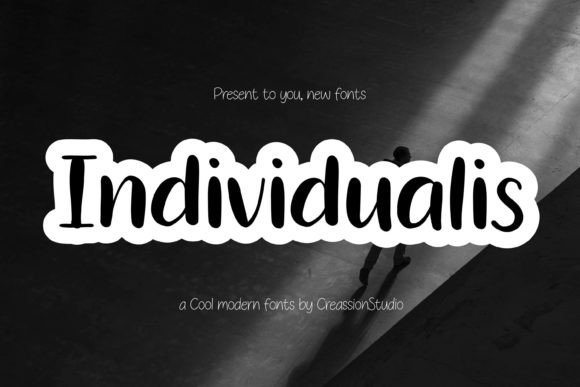
Feast your eyes on Individualis Font, the epitome of elegance and modernity in the realm of digital typography. This captivating script font, skillfully crafted by Creassion Studio, is a symphony of clean lines, balanced proportions, and understated grace. Individualis Font transcends the ordinary, inviting you to embark on a creative odyssey where your designs take center stage.
With Individualis Font as your creative ally, your branding projects will radiate a sense of contemporary sophistication. Its versatile nature effortlessly adapts to a myriad of design contexts, from editorial layouts to digital interfaces. Let Individualis Font infuse your creations with an air of professionalism and timeless appeal, leaving an indelible mark on your audience's minds.
Beyond its aesthetic allure, Individualis Font is a font of remarkable versatility. Its intuitive flow and effortless readability make it an ideal choice for crafting compelling headlines, captivating social media posts, and visually striking advertisements. Watch as your words dance across the screen, capturing attention and igniting imaginations.
If you seek a font that embodies sophistication, versatility, and effortless style, look no further than Individualis Font. Adorn your designs with this modern masterpiece and unlock a world of creative possibilities. Experience the transformative power of typography with Individualis Font, the ultimate font for the discerning Mac user.